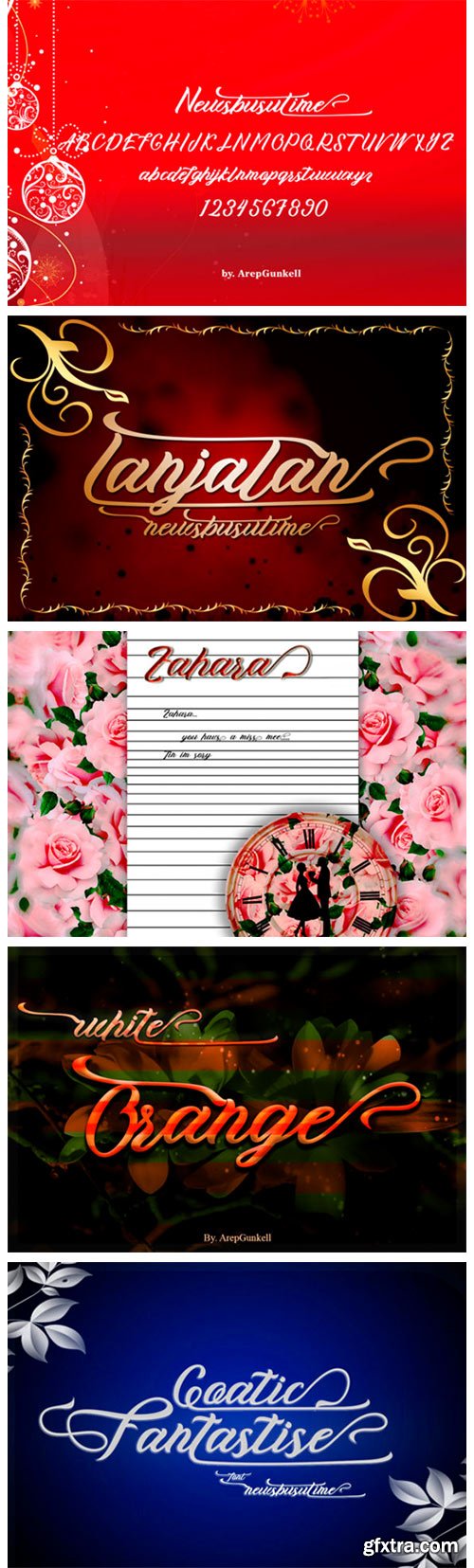
News Busu Time Font
News Busu Time is a distinct, elegant handwritten font that blends traditional influences into a contemporary aesthetic. This typeface will look outstanding in both formal and non-formal designs.